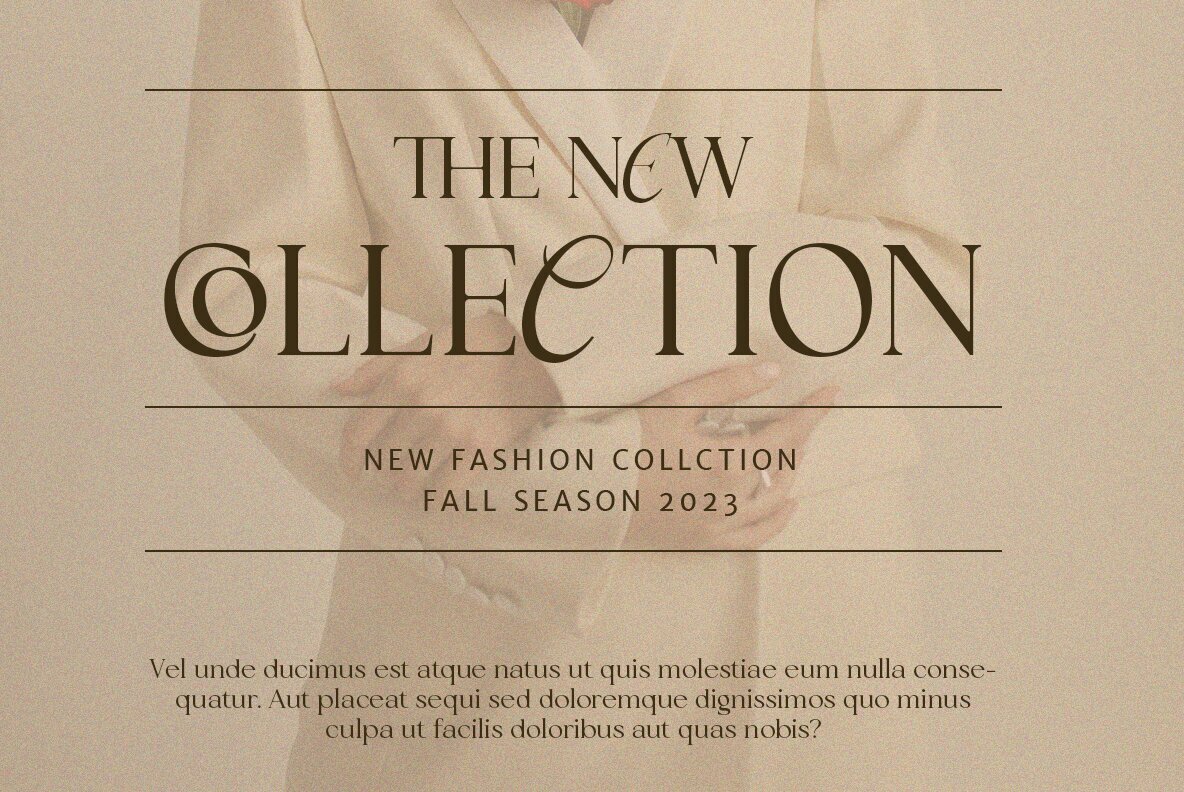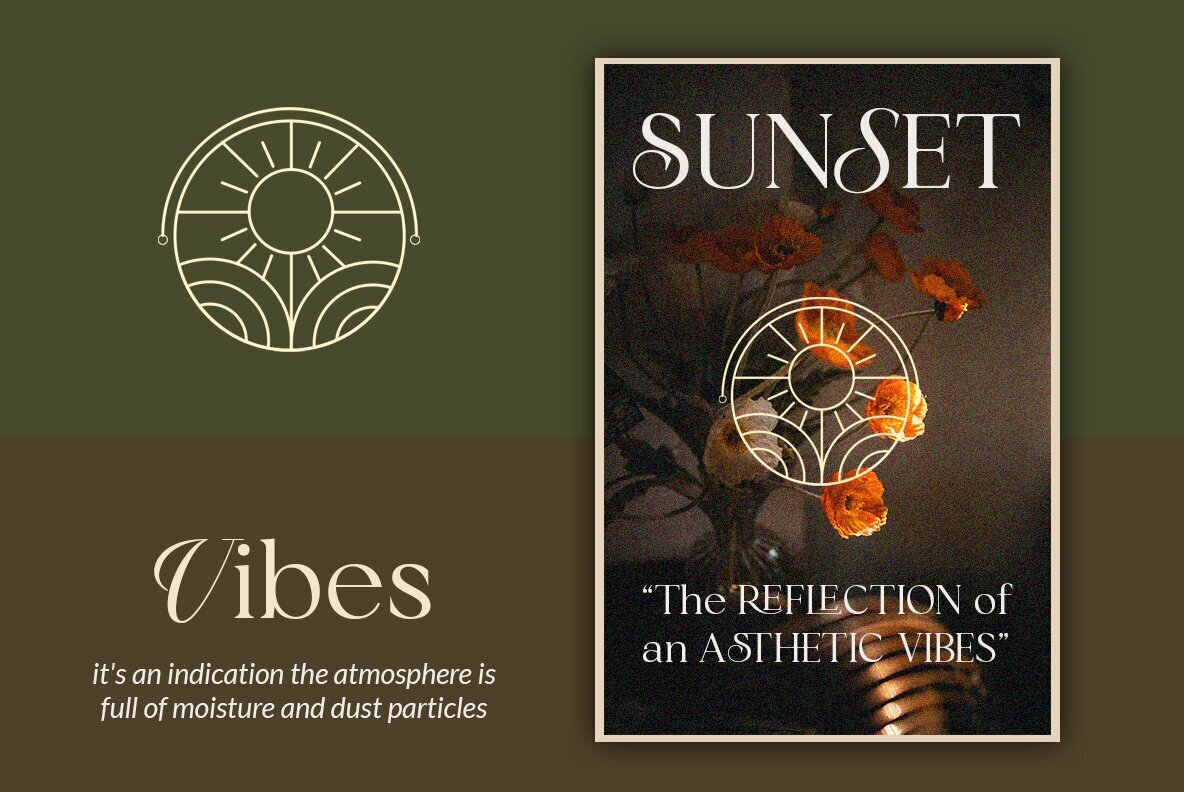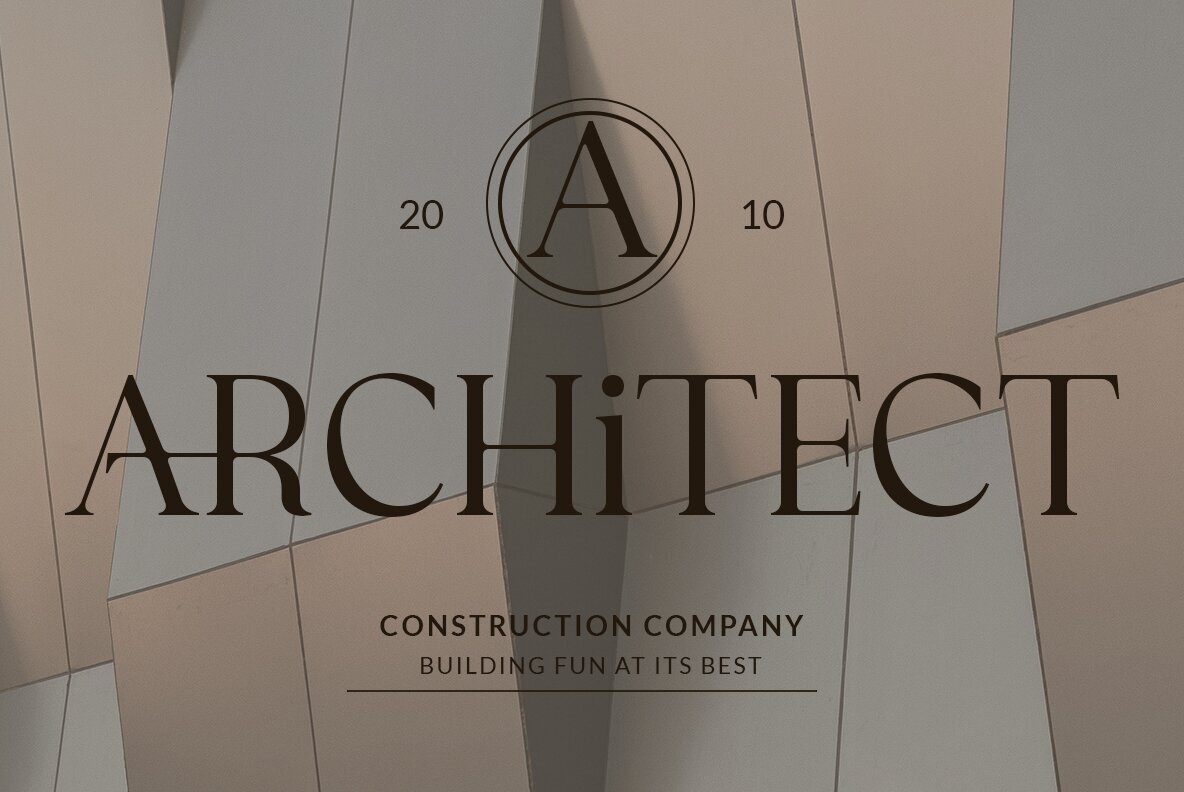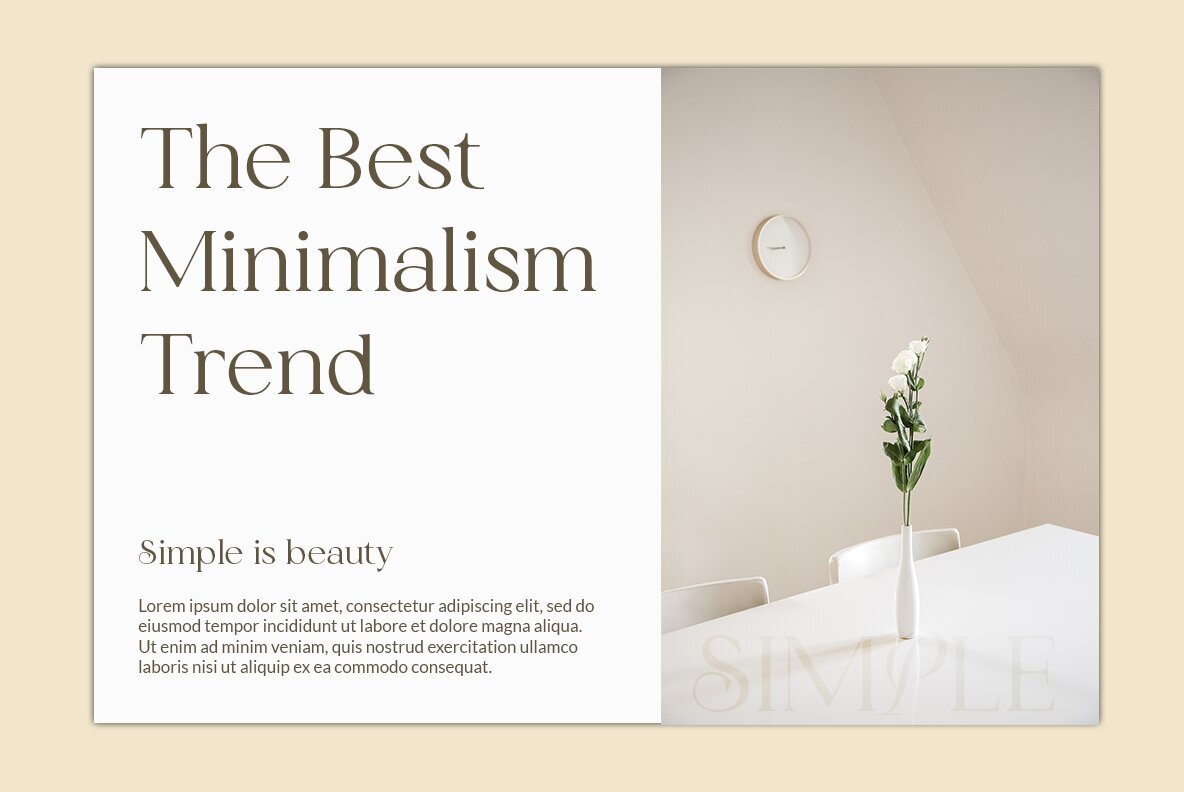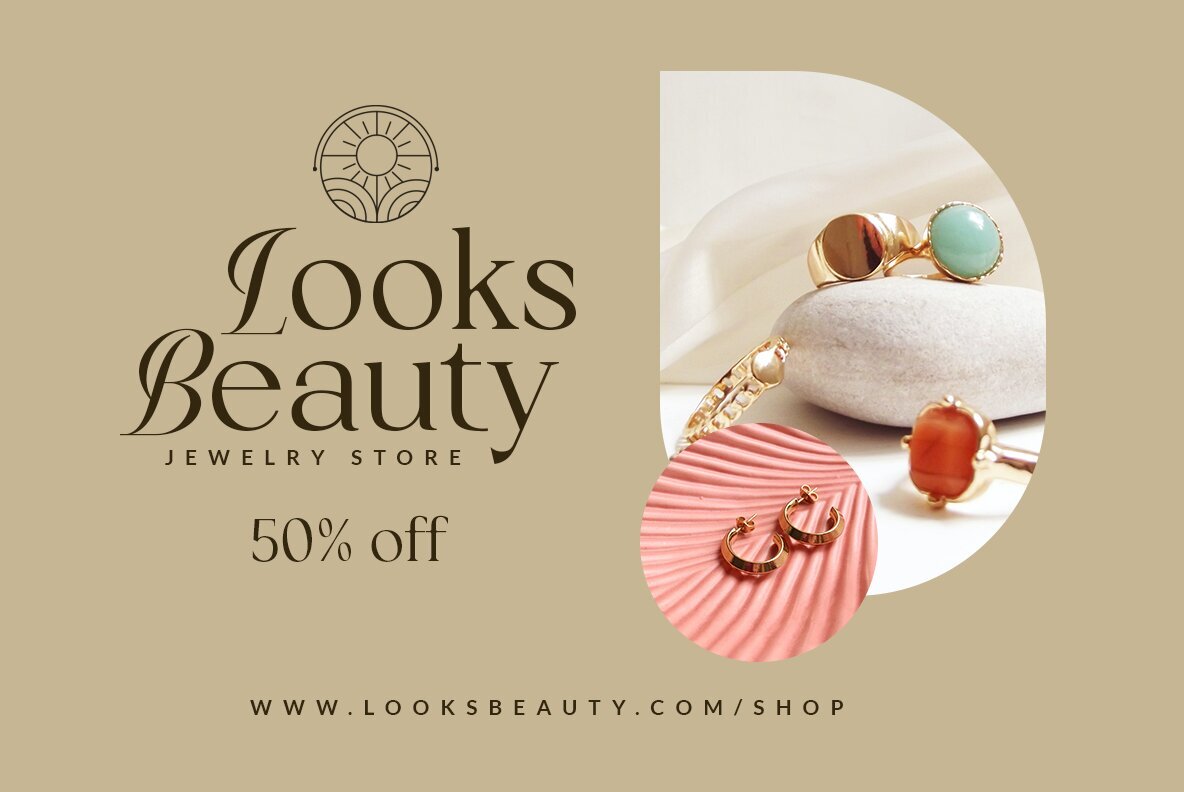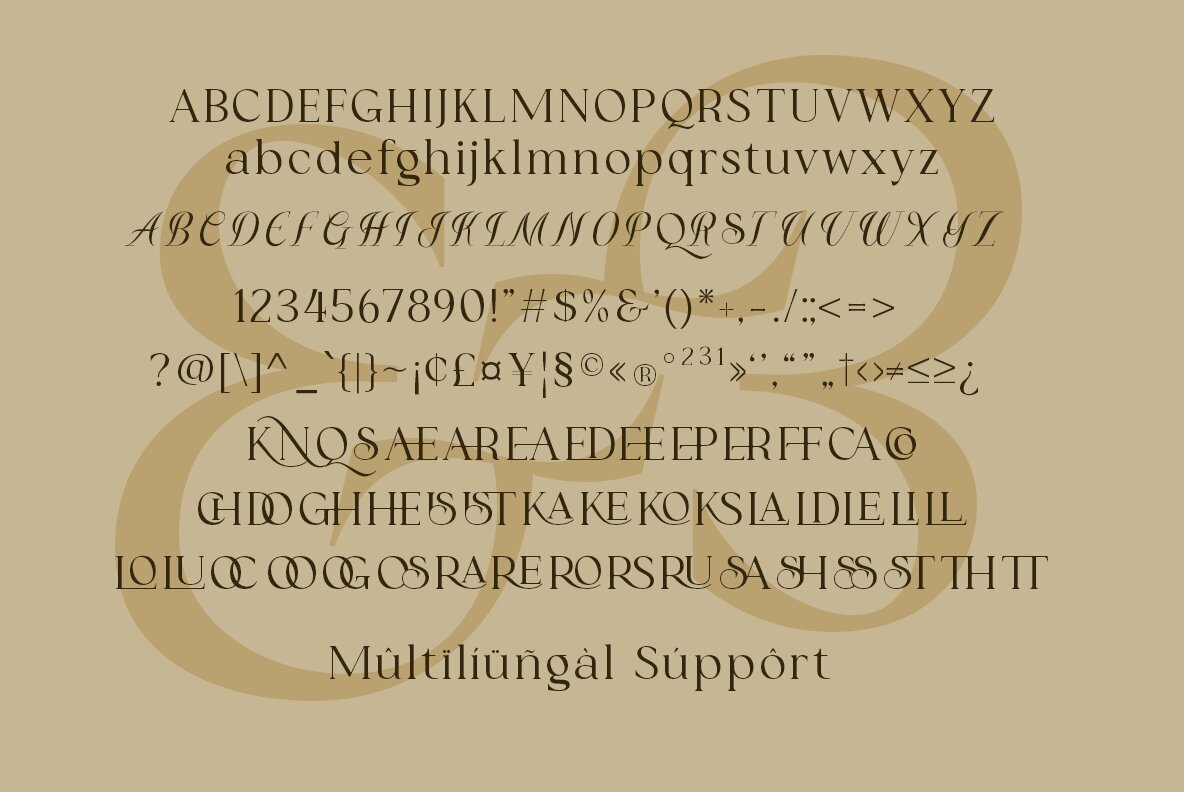
Ringoven Font
Ringoven Regular
Ringoven is Serif collection font with natural movement make looks elegant, classy and beauty for your project. Ringoven is perfect for branding projects, logo, wedding designs, social media posts, advertisements, product packaging, product designs, label, photography, watermark, invitation, stationery and any projects. This gorgeous font includes all lowercase and uppercase characters, numbers, punctuation, an array of standard ligatures and a selection of international characters as well.